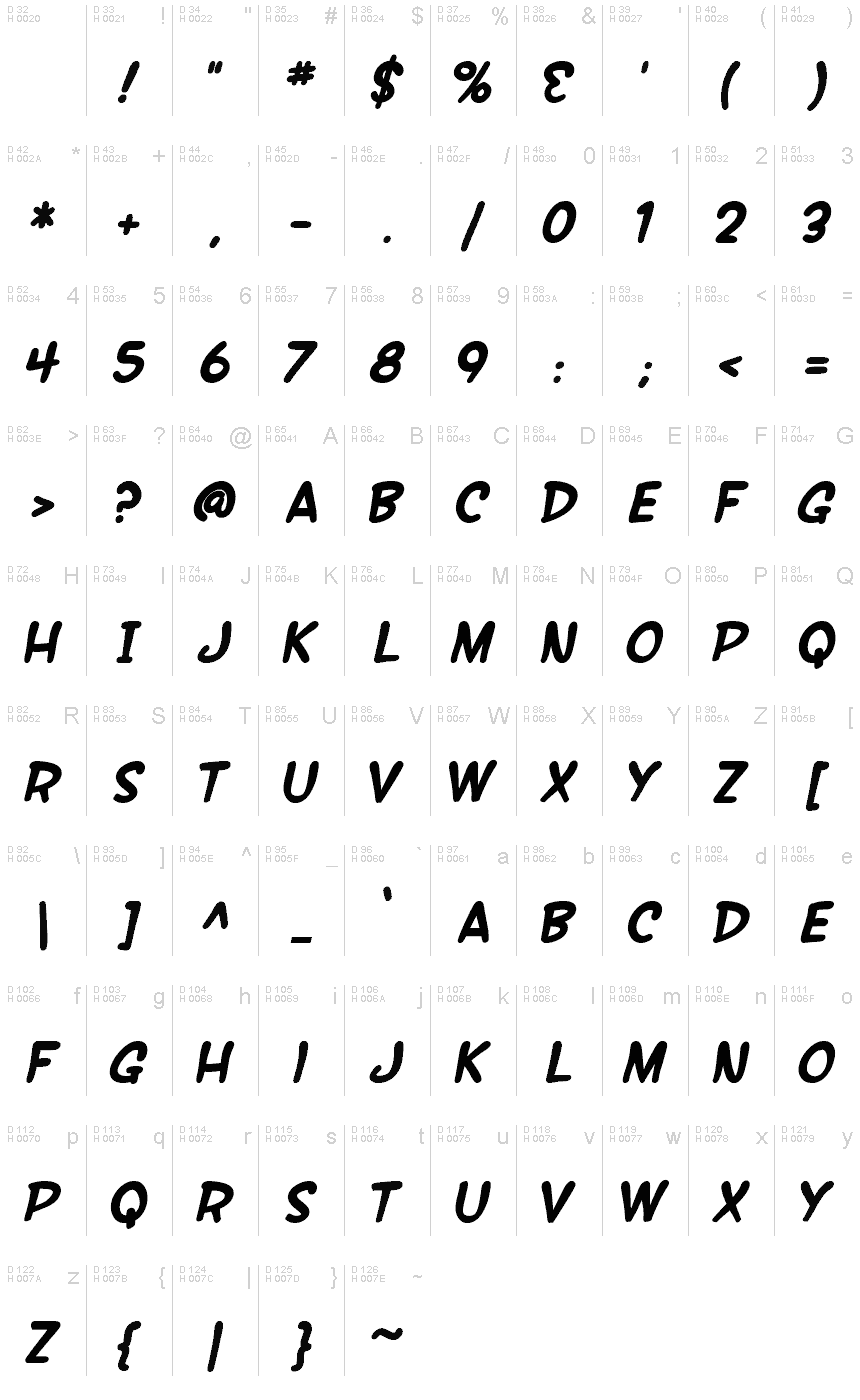
SF Wonder Comic Bold Italic
SF Wonder Comic Bold Italic, from ShyFonts Type Foundry, brings a playful and dynamic energy to the world of display fonts. Exuding a comic book charm with its semi-bold weight and italicized stance, this font captures the essence of fun storytelling with every character. Its whimsical curves and exaggerated forms are designed to command attention while maintaining readability, making it an excellent choice for creative projects that require a touch of lightheartedness.
The SF Wonder Comic family is tailored for contexts where personality is key—think animated video titles, children's book covers, or vibrant brand logos. The bold italic variant in particular adds an extra level of enthusiasm and movement to the text, suggesting action and excitement. This font's aesthetic appeal lies in its ability to balance playfulness with purpose, ensuring that your message not only stands out but also resonates with an audience looking for joy in visual design. Whether you're crafting a birthday invitation or spicing up a comic strip dialogue, SF Wonder Comic Bold Italic infuses your project with an irresistible zest that is hard to overlook.